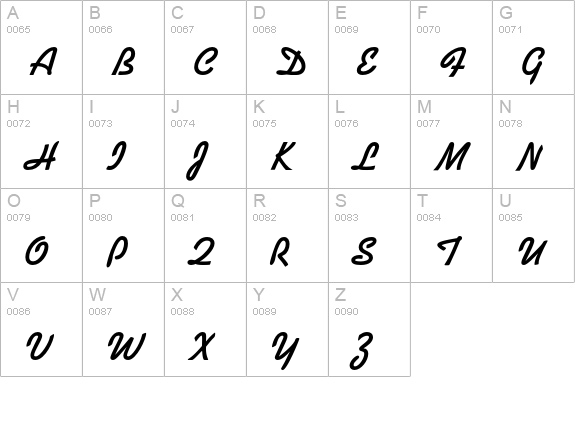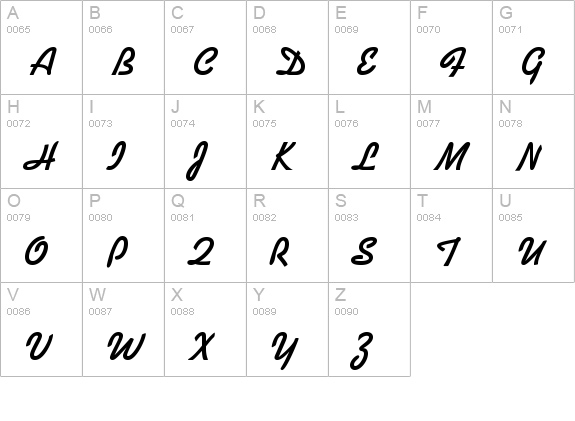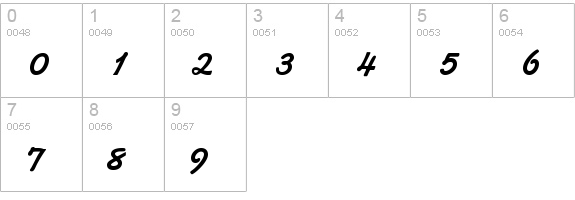
Kaufmann Bold is a strong, high-contrast variant in the Kaufmann typeface family \xE2\x80\x94 well suited to headlines, attention-grabbing titles, and strong calls-to-action.
Kaufmann Bold is a stunning and versatile font that captures attention with its bold and powerful presence. Its strong, yet balanced letterforms make it perfect for a wide range of design projects, from eye-catching headlines to impactful branding materials. With its clean and modern aesthetic, Kaufmann Bold exudes confidence and sophistication. Each letter is meticulously crafted, showcasing a harmonious blend of sharp angles and elegant curves. The bold weight of this font adds a touch of drama and intensity, making it ideal for creating memorable and impactful designs. Whether you're designing a logo, poster, or website, Kaufmann Bold will effortlessly elevate your project to new heights. Its versatility allows it to be paired with both serif and sans-serif fonts, creating a dynamic and visually appealing composition. One of the best features of Kaufmann Bold is that it is free to download at FontsMarket.com. This means that you can easily access this exceptional font without any cost, allowing you to enhance your design projects without breaking the bank. With its high quality and professional look, Kaufmann Bold is a valuable asset for any designer or creative professional. So, if you're looking for a bold and impactful font that will make your designs stand out, look no further than Kaufmann Bold. Download it for free at FontsMarket.com and let your creativity shine through.